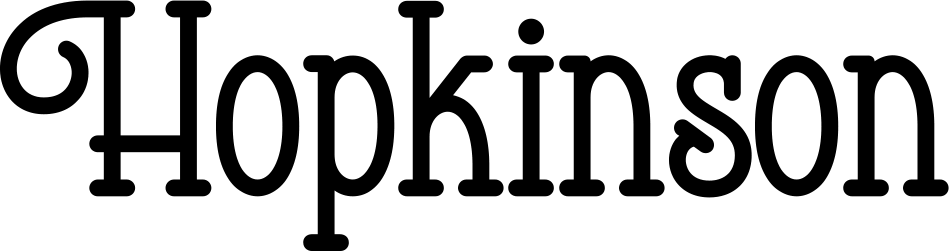
Hopkinson Font
Some projects like noodles or spaghetti packaging, food book covers, food TV show titles, and other areas like these can connect more with a quirky and curvy font like Hopkinson. This is a curly font that brings the playful mood that you have in mind out of your content.
This font comes with an impressive collection of characters containing both the uppercase and lowercase of the alphabet, the numbers, and the punctuation marks.